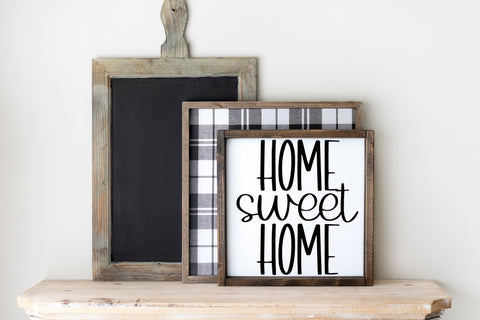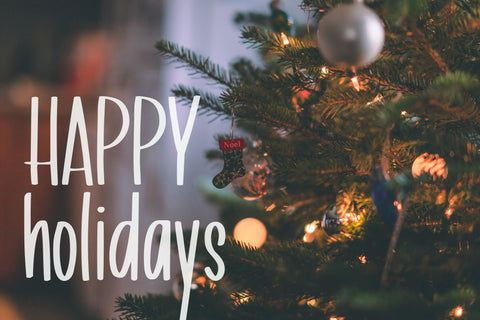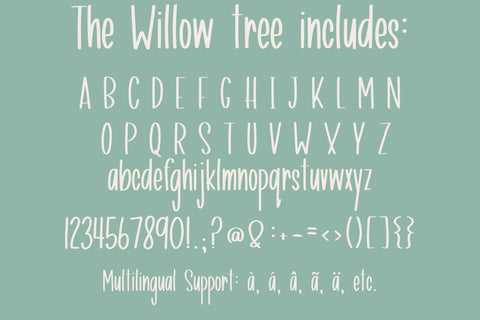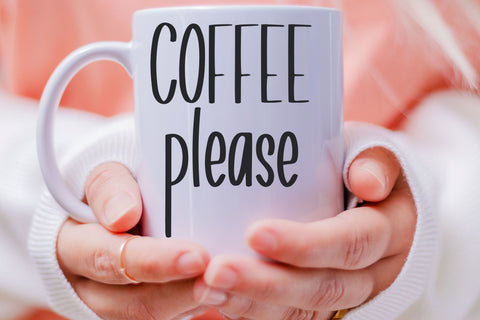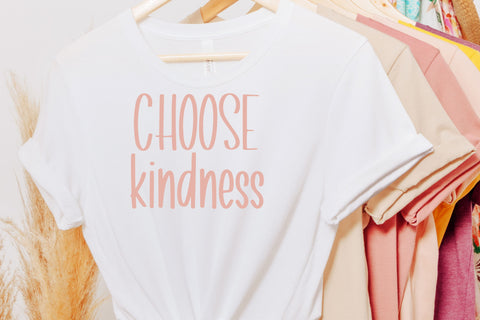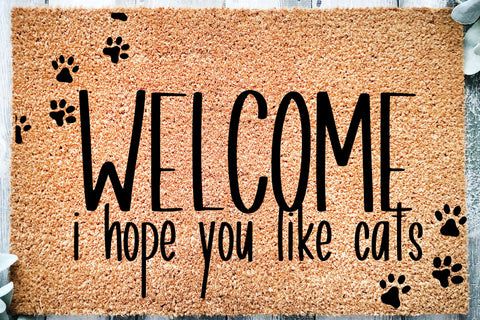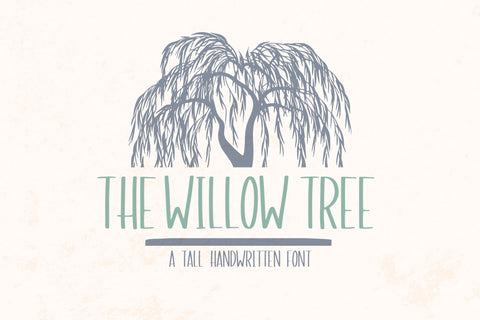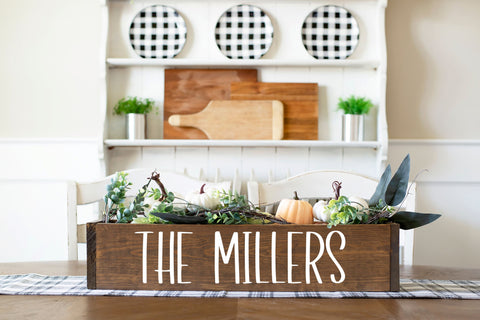
The Willow Tree, Cute Handwritten Font for Cricut, Tall Handwriting
Introducing The Willow Tree, a charming tall farmhouse handwritten font for Cricut and more. Our handwriting font is compatible with SVGs, Goodnotes, Procreate, and many other programs. Whether you're designing rustic farmhouse signs, personalized stationery, or handmade cards, this versatile and enchanting font will surely impress. Elevate your designs with this captivating and sought-after fun handwriting Cricut font, a must-have for any font enthusiast or DIY enthusiast.